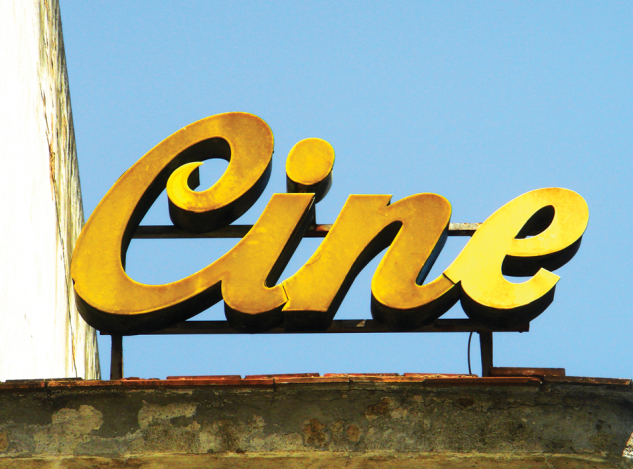
Cinema Lealas from Typechap Stephen ONeill, Jerez, Spain # 05/11/15 Categories: Display, Script Tags: #typechap, #jerez Signage, via craftsmen, via old letraset catalogues, via Jerez de la Frontera. 303 Likes